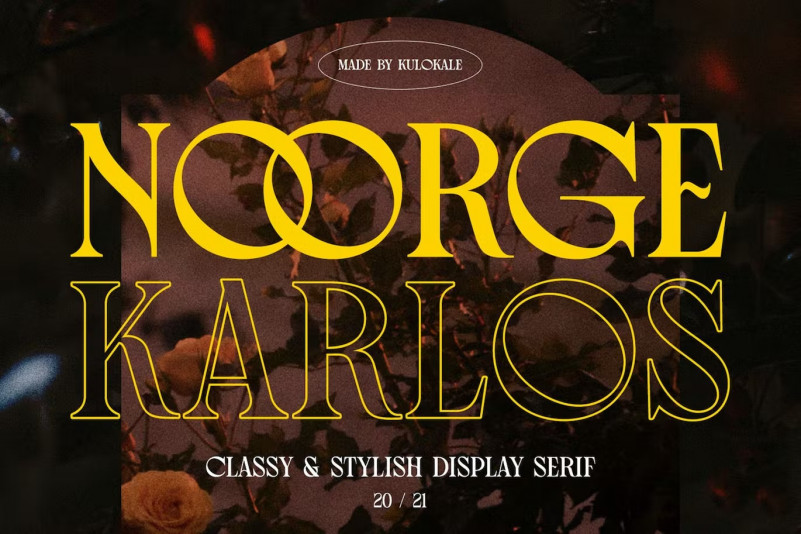
Noorge Karlos Font
Noorge Karlos Serif Font is a classy, stylish serif typeface coming in four styles: Regular, Oblique, Outline and Oblique Outline. The typeface’s stunning array of alternates makes it easy to craft a unique typographic voice, while its sophisticated, timeless design is balanced with unusual quirks that give it a decidedly contemporary feel.
Well suited to advertising, branding, logotypes, packaging, titles, headlines and editorial design, Noorge Karlos’ character easily acclimatises across various settings. With extensive language support, this typeface would work beautifully in multilingual branding and visual identity projects.